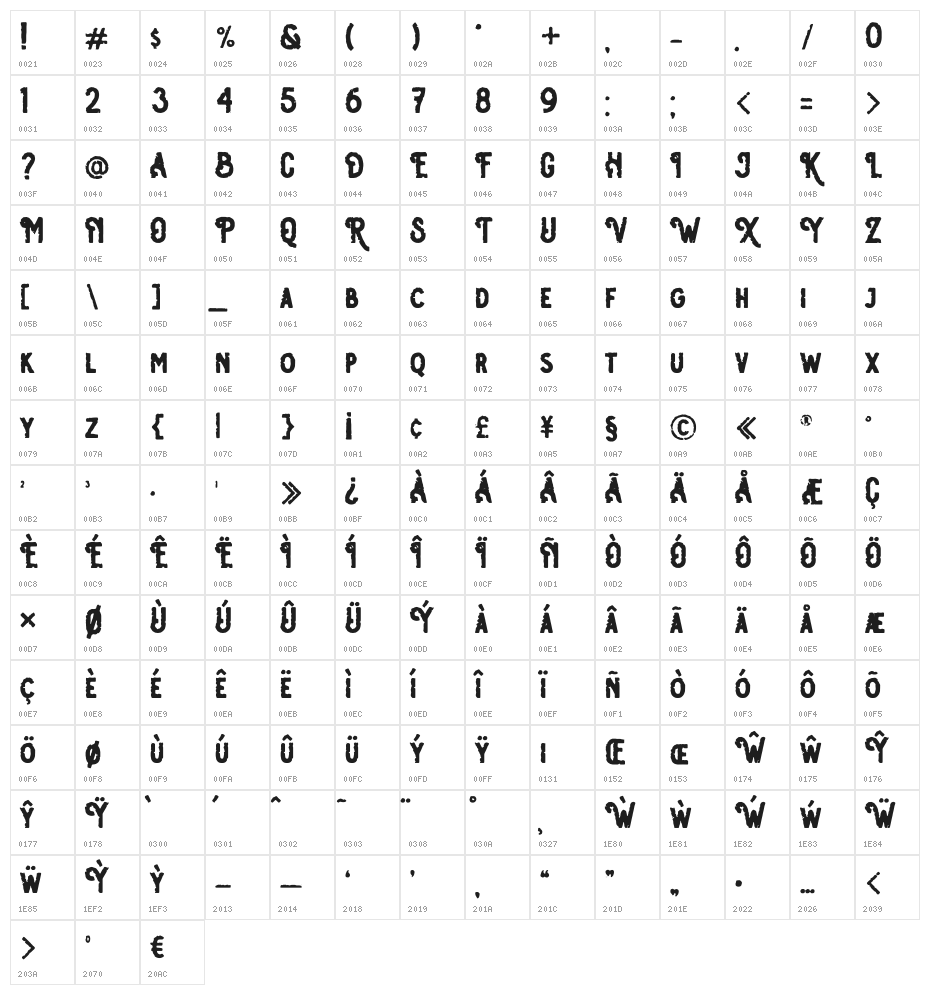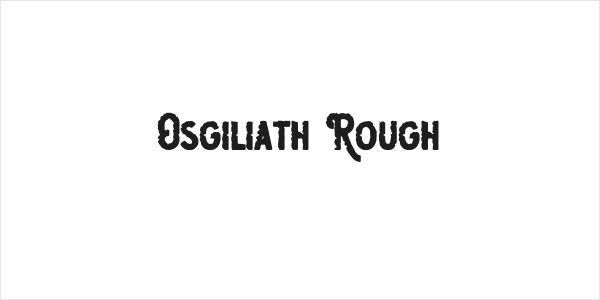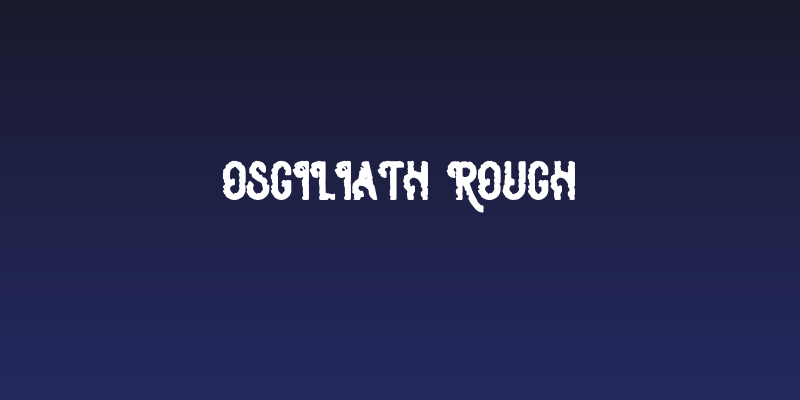
Osgiliath Rough Font
Osgiliath Rough Description
This font features a rugged and distressed appearance, reminiscent of ancient stone carvings or weathered wood. The characters are bold and have a rough texture, giving them a unique, hand-crafted feel. The uppercase letters are particularly striking, with uneven edges and a sense of movement, while the lowercase letters maintain a consistent style. Numbers and special characters follow the same design principles, ensuring a cohesive look across all text. This font is ideal for projects that require a strong, impactful visual presence, such as posters, album covers, or themed event materials.
Proposed ProjectsIdeal for posters, album covers, themed events, or any project needing a strong visual impact.